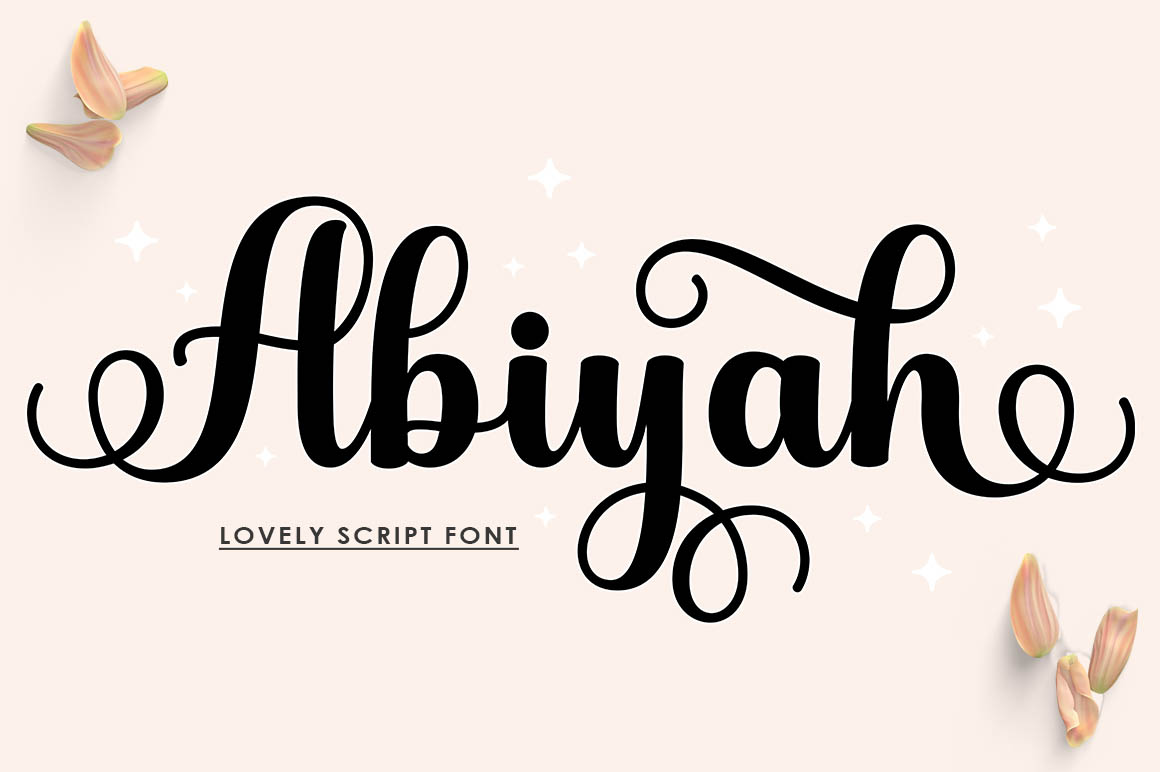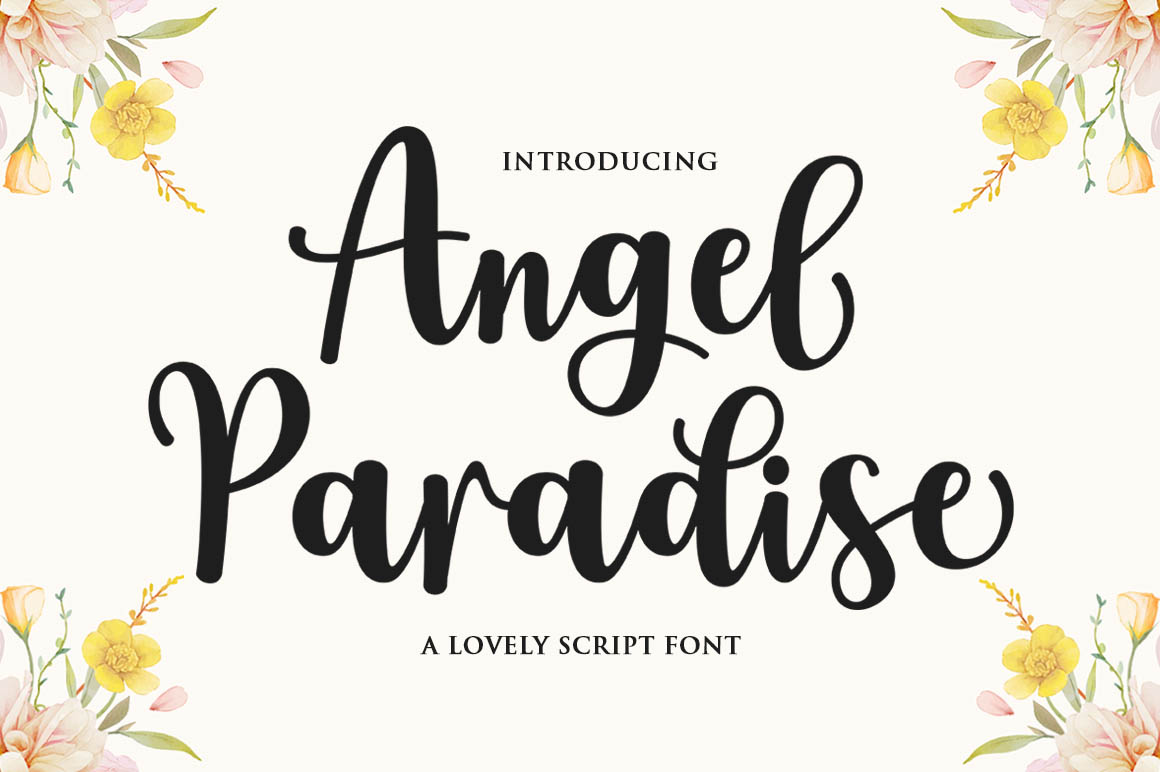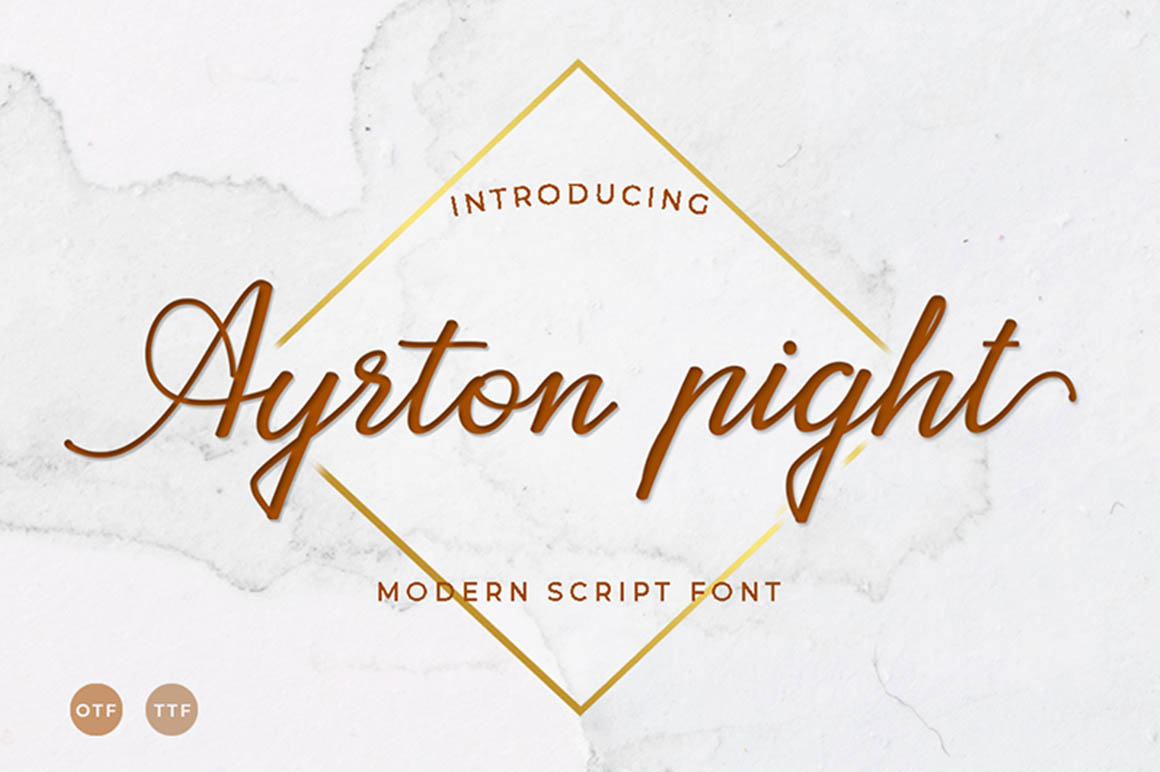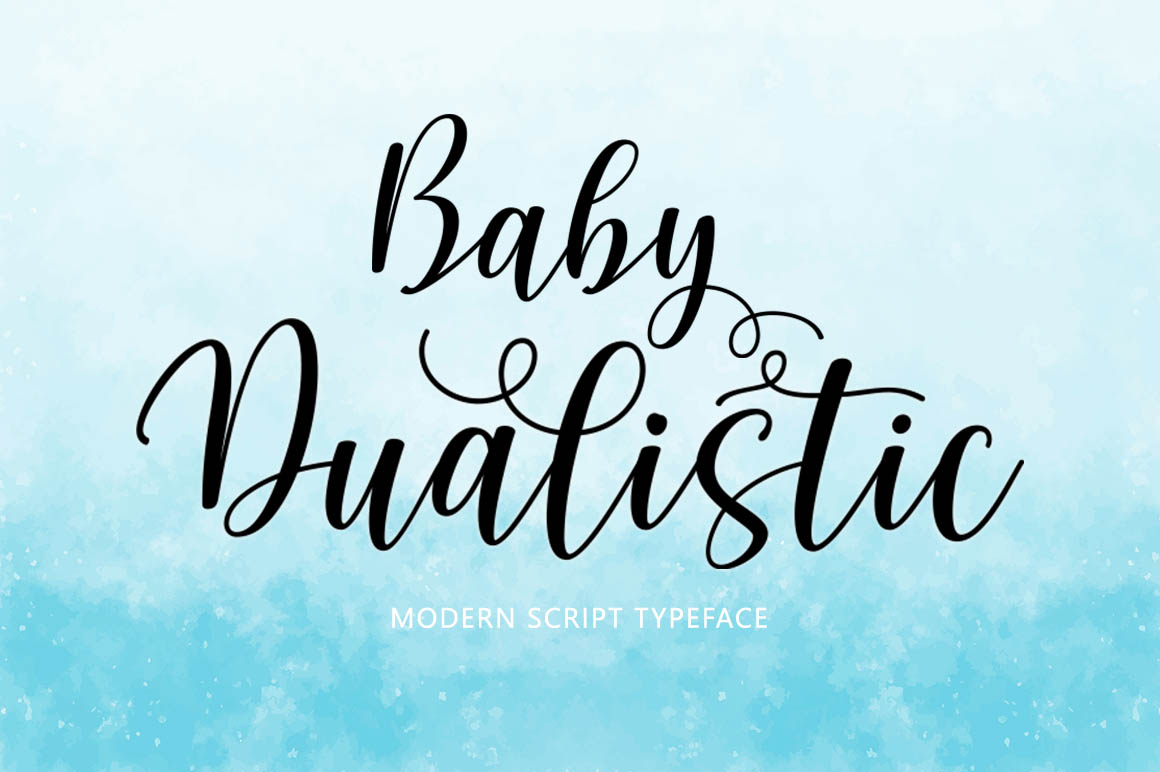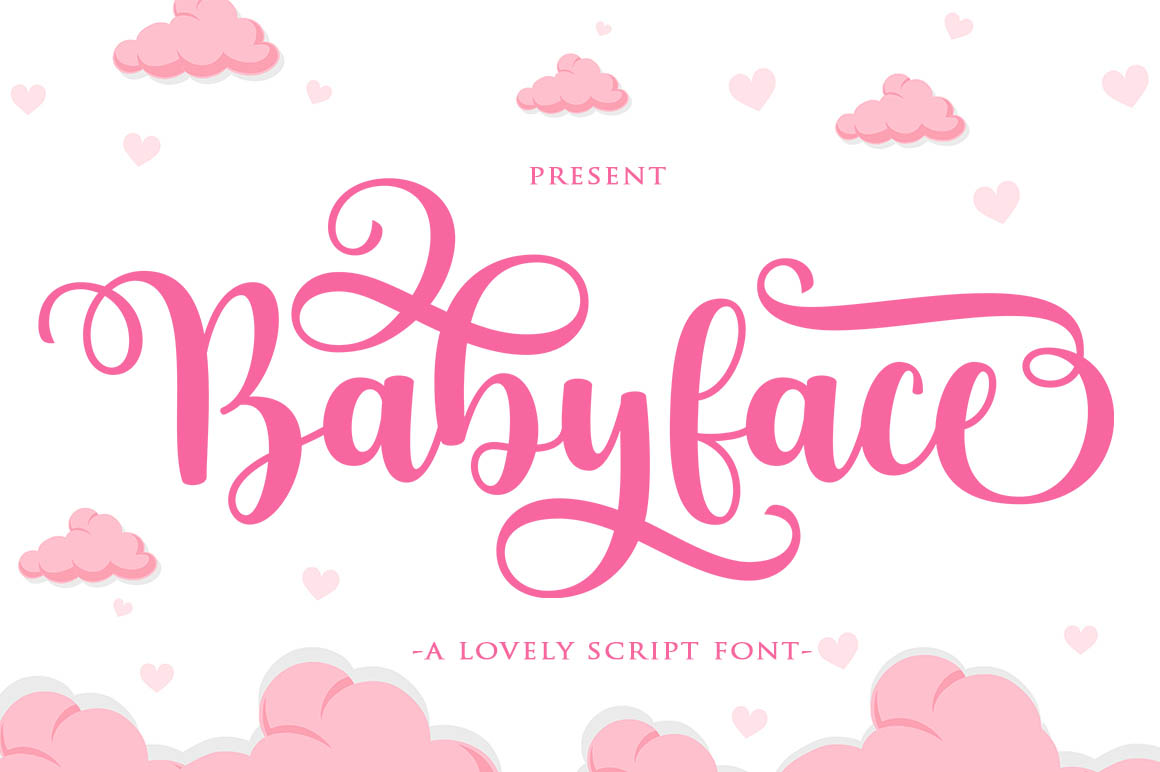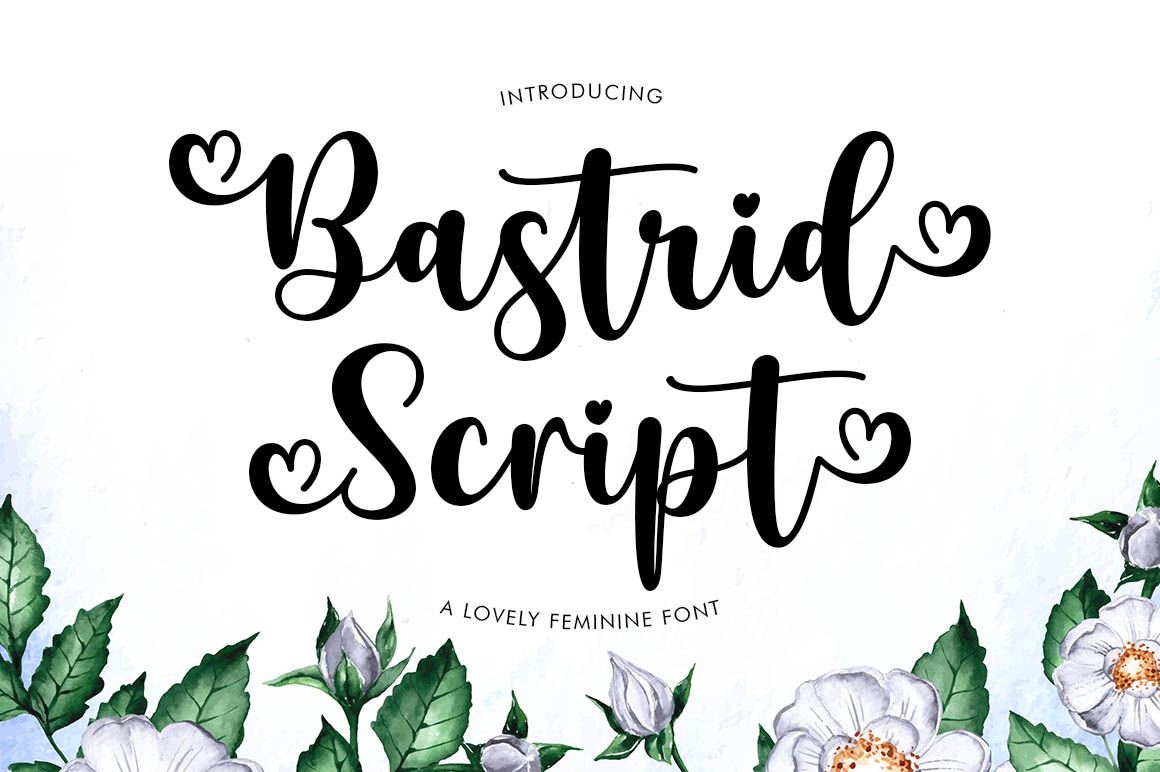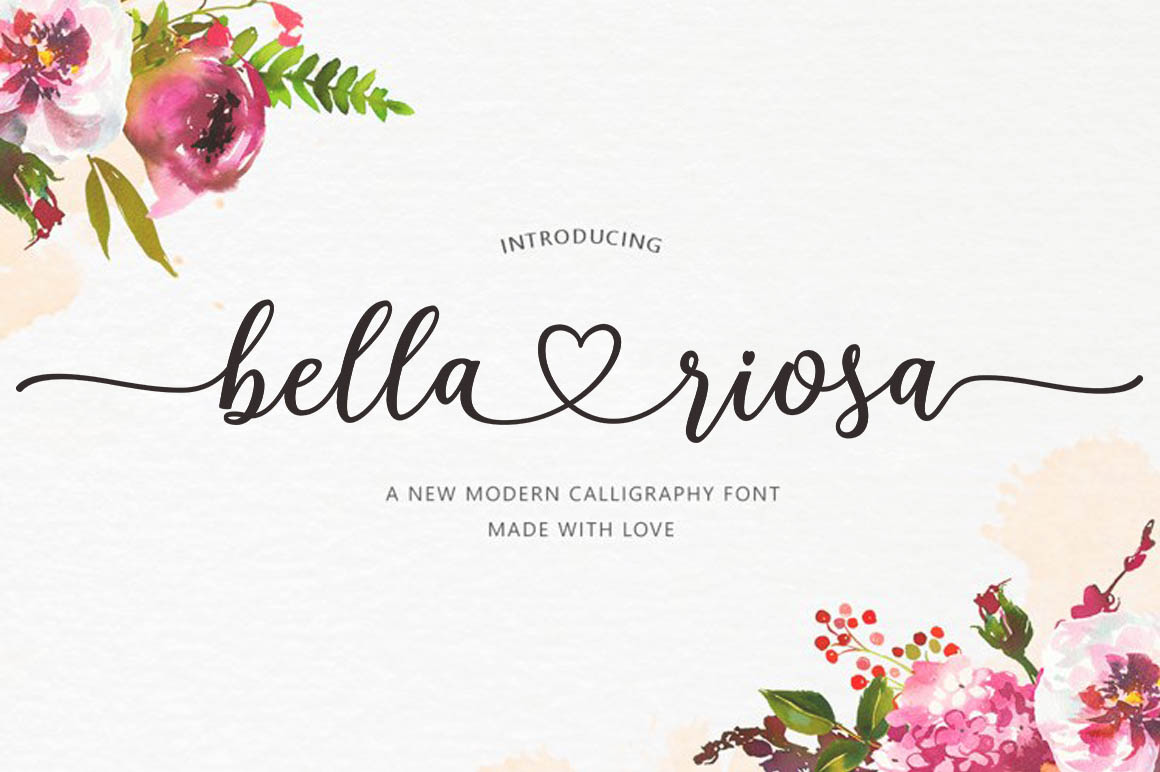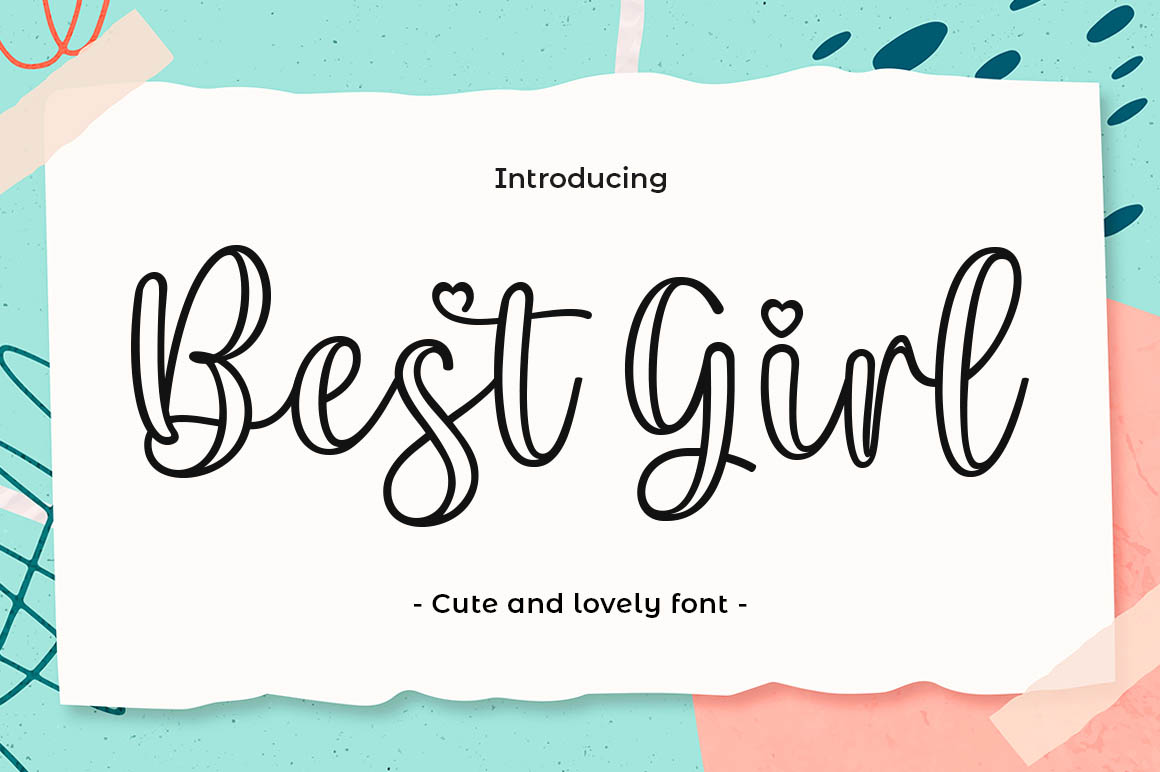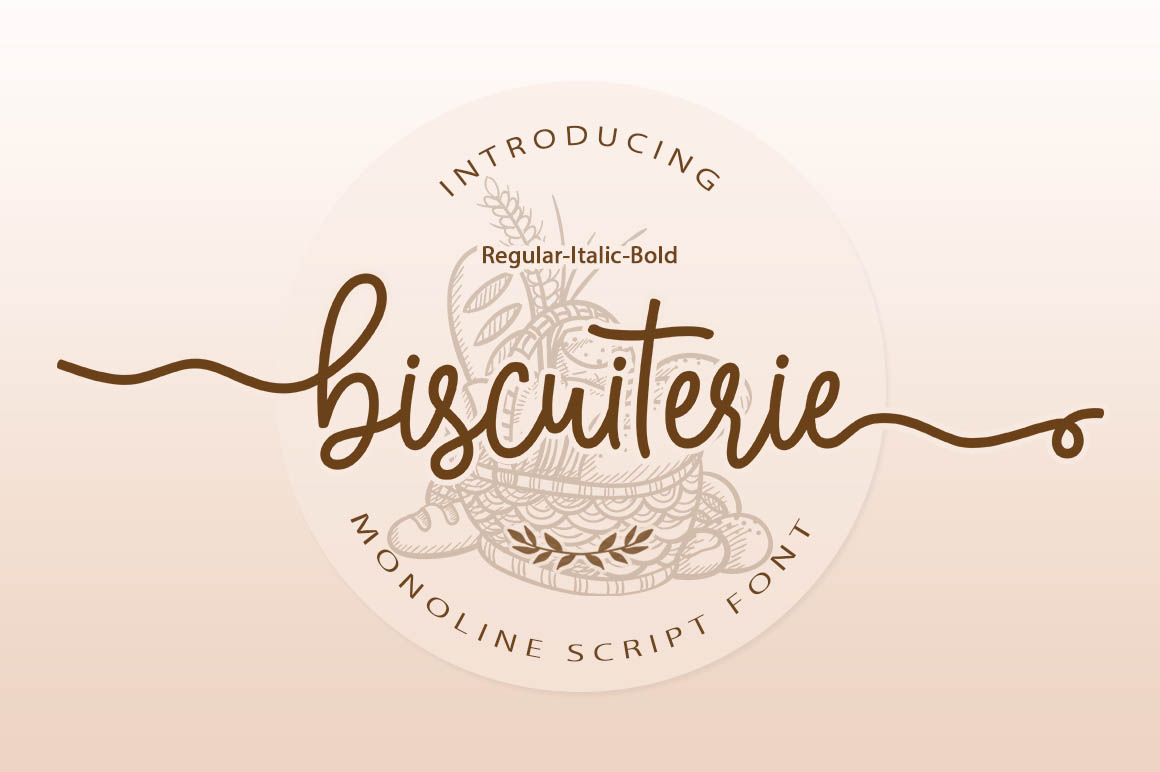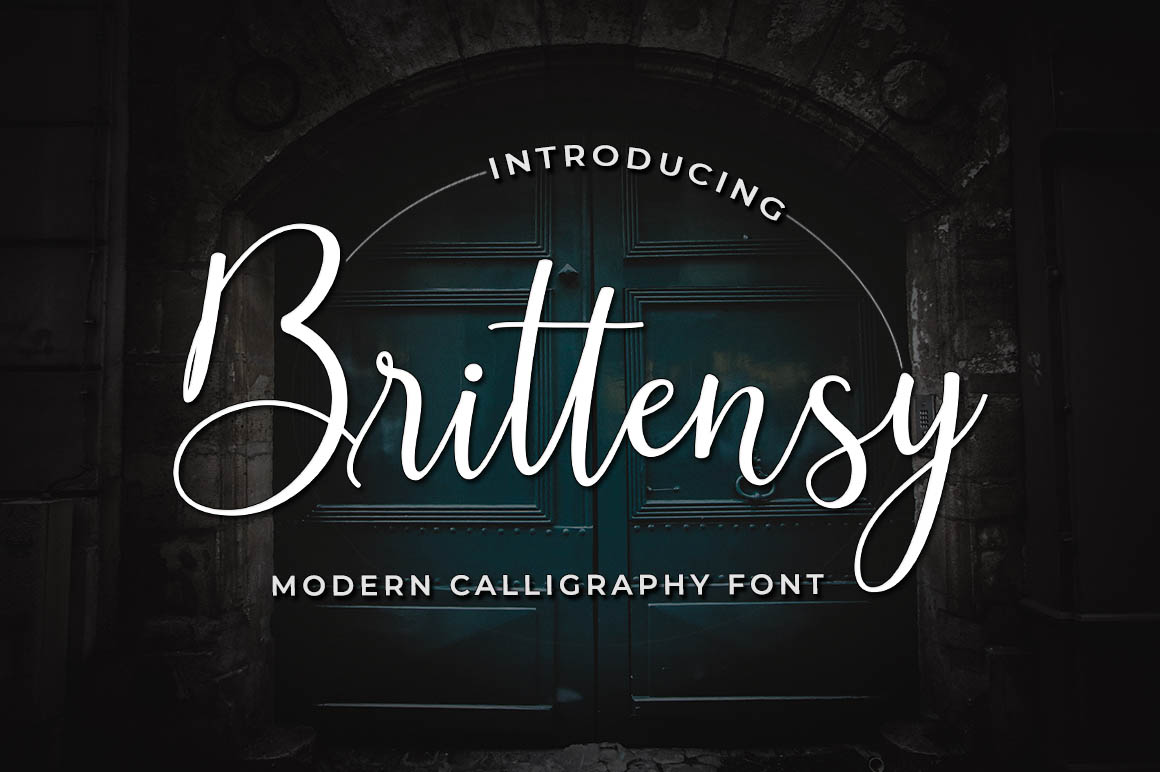
Brand new elegant & cute style typography bundle with 56 multilingual display fonts! All these fonts are cute, romantic & stylish so you can use it for any kind of modern or artistic style branding projects or print designs 😉
The Beautiful Font Bundle from Attract Studio contains 56 fancy, modern, elegant & decorative display fonts (dingbats) for your new projects! Don’t miss this creative & playful style font & branding bundle 😉
- 30 elegant & cute display font sets with 56 fancy fonts for your new projects!
- Great for modern branding projects, headers, posters or any print designs…
56 elegant & cute display fonts for your new projects!
Creative and funny handwritten fonts & dingbats 😉
- 30 elegant & cute display font sets with 56 fancy fonts for your new projects!